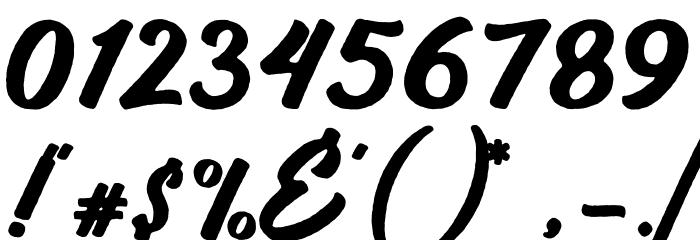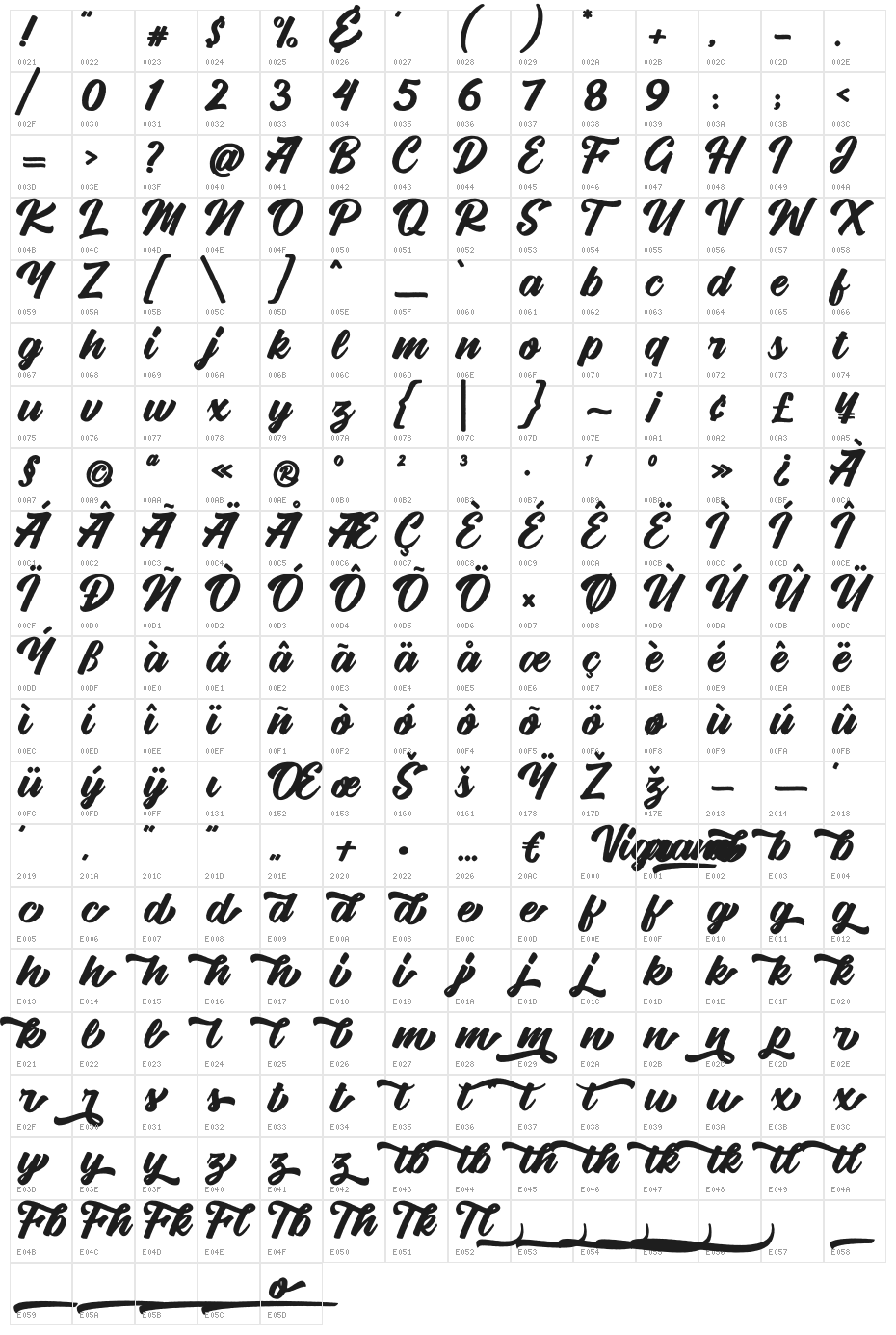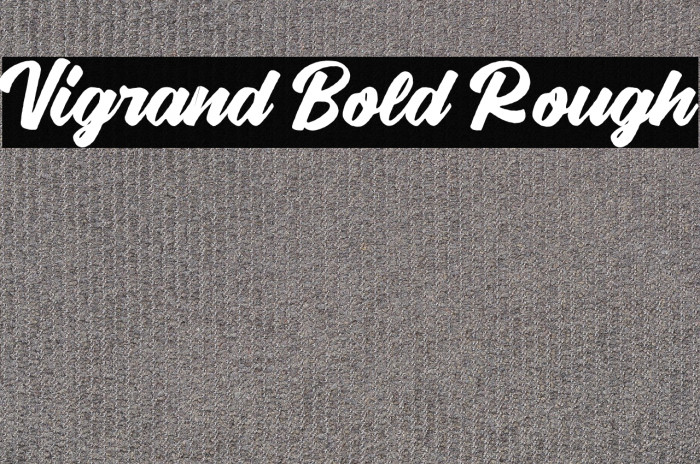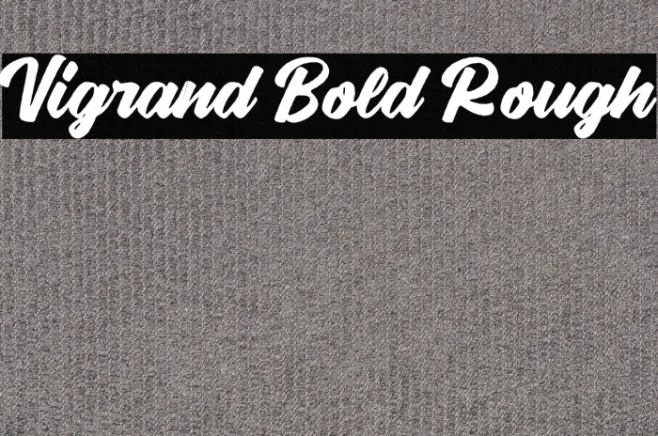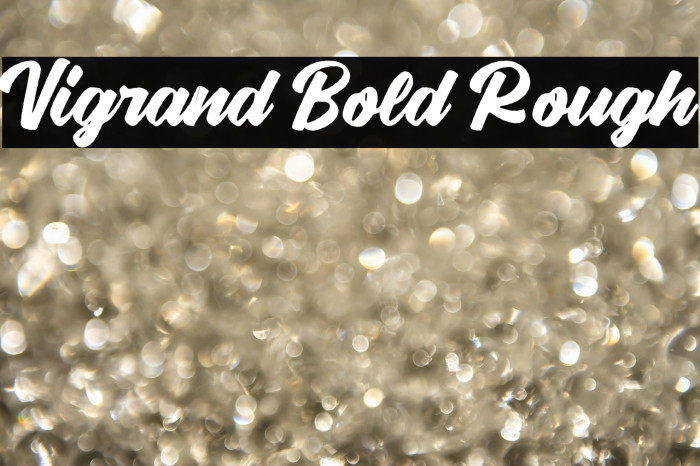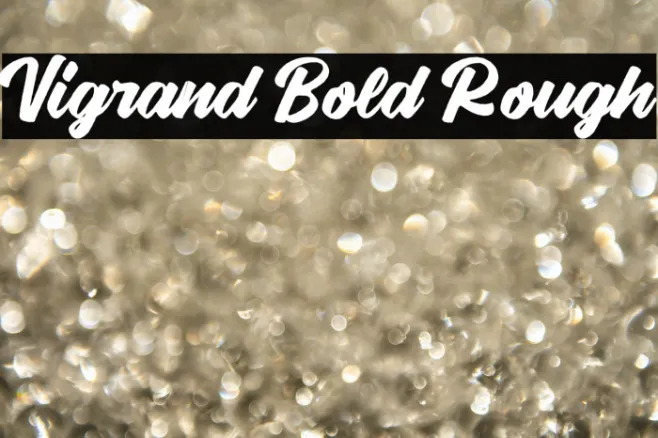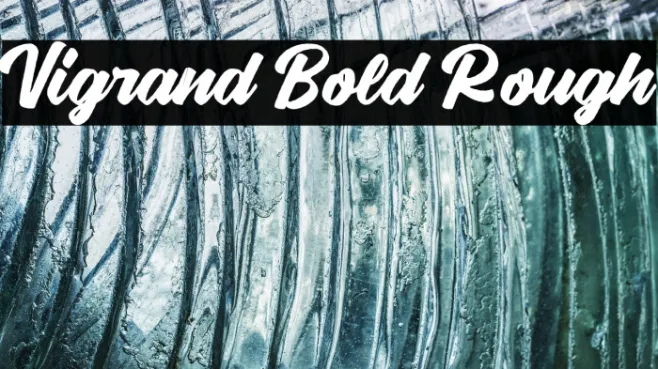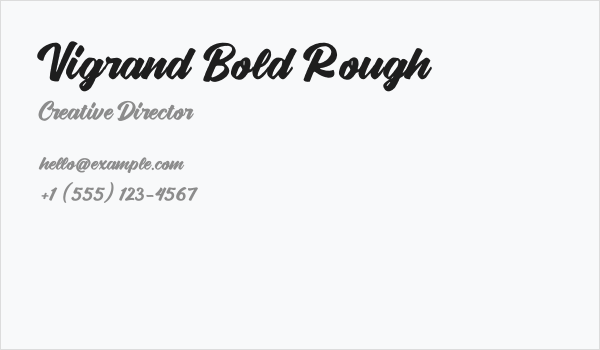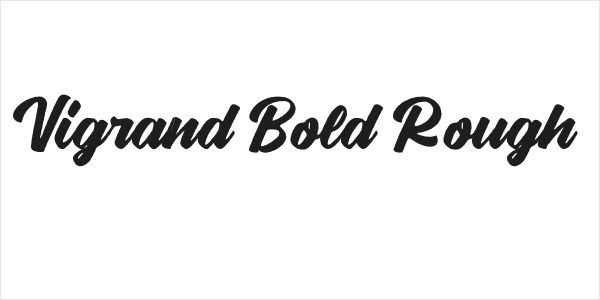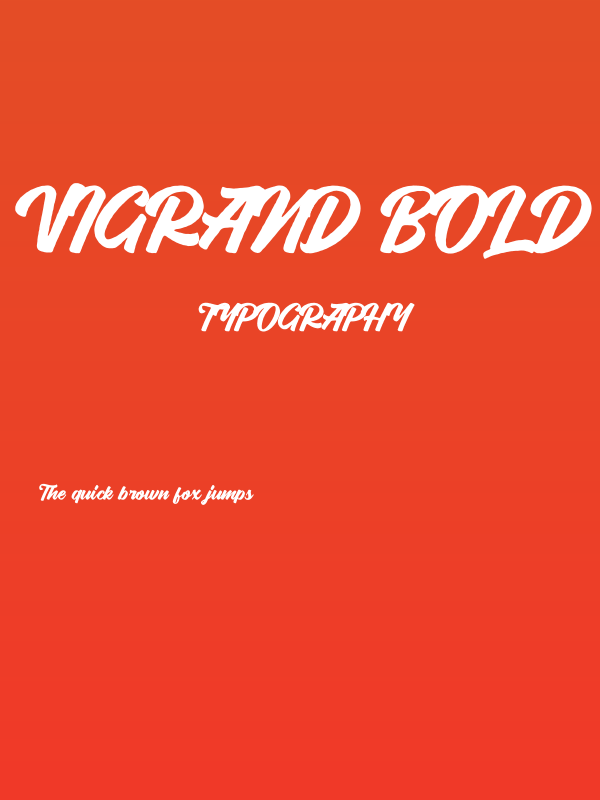
Vigrand Bold Rough Font
Vigrand Bold Rough Description
This font features a bold and rough script style, characterized by its thick, flowing strokes and dynamic curves. The letters are connected, giving it a handwritten appearance with a touch of ruggedness. The uppercase letters are bold and prominent, while the lowercase letters maintain a consistent flow, enhancing readability. The numerals are equally bold, matching the overall aesthetic of the font. Special characters are included, maintaining the same bold and rough texture, making it versatile for various design needs. This font exudes a sense of energy and movement, suitable for projects that require a strong and impactful visual presence.
| Proposed Projects | Ideal for branding, logos, headlines, posters, and any design project requiring a bold, energetic script. |